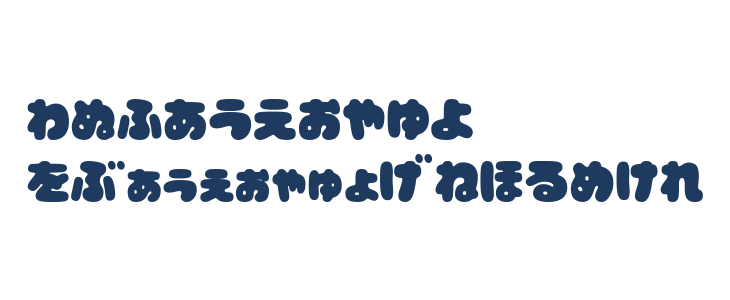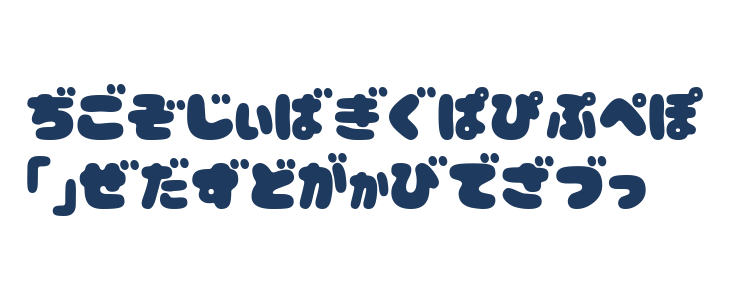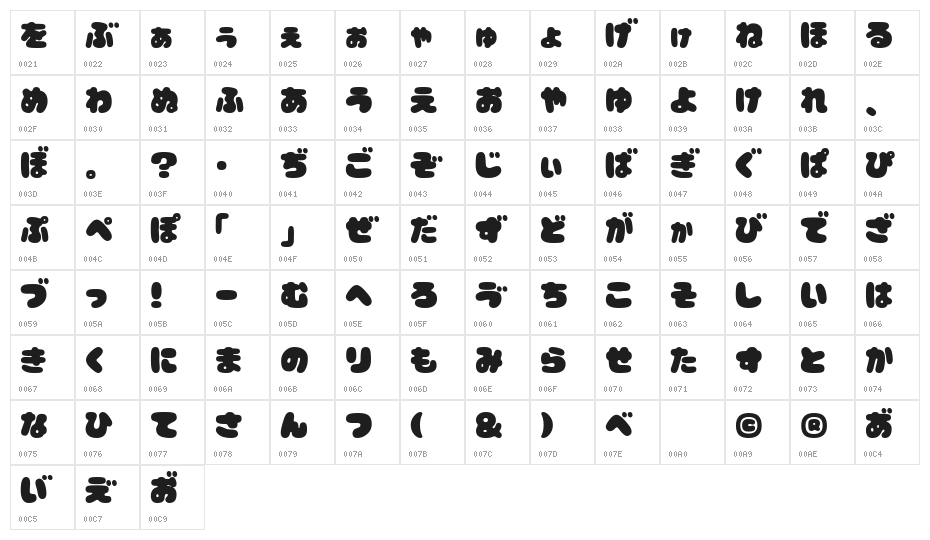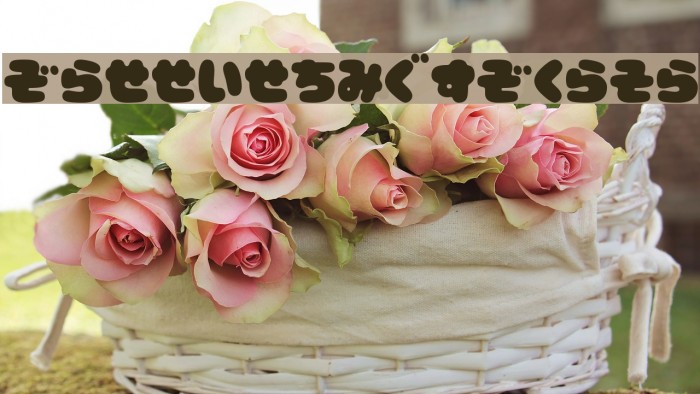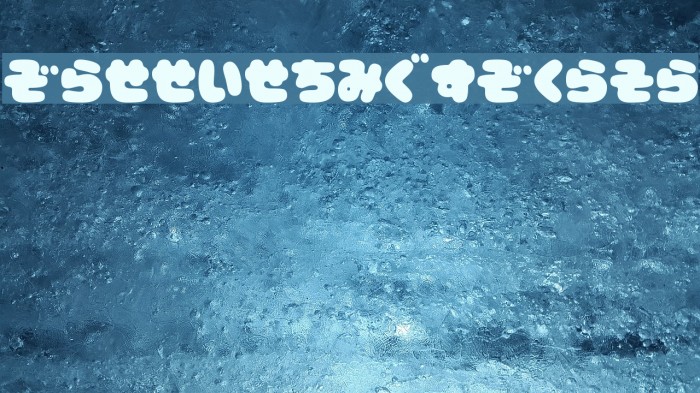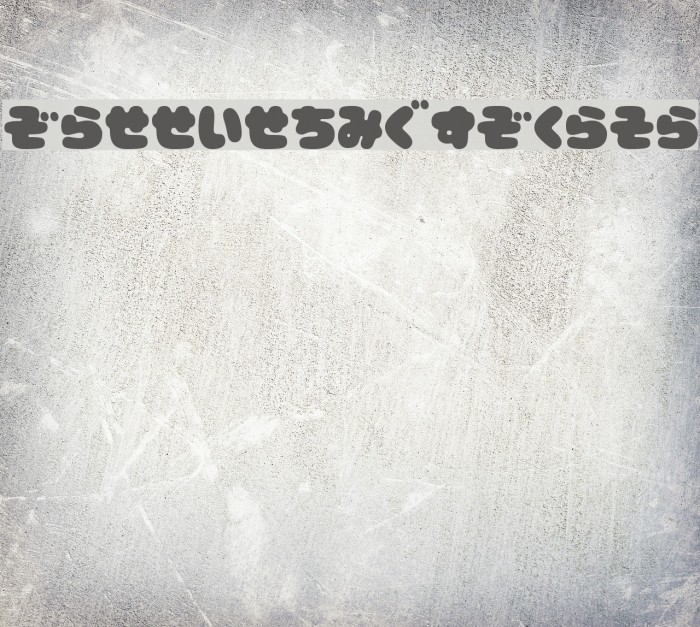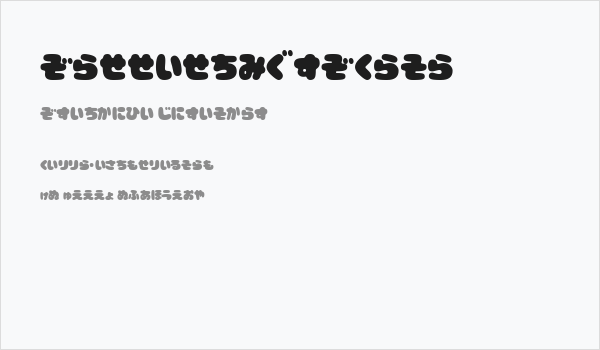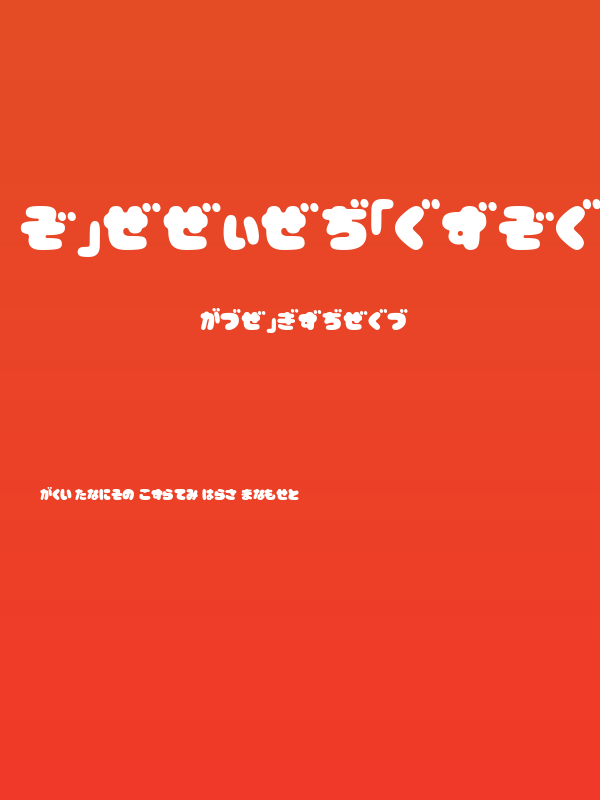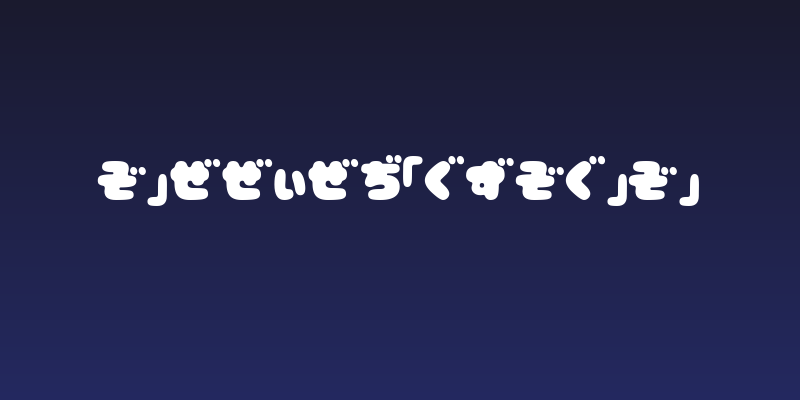
CoppepanHrChoco Font
CoppepanHrChoco Description
This playful and bold font features rounded, bubble-like characters that convey a sense of fun and whimsy. The strokes are thick and uniform, giving it a strong presence on the page. The characters are closely spaced, enhancing the compact and cohesive look. This style is particularly suitable for designs that aim to capture attention and convey a lively, energetic vibe. The font's unique appearance makes it ideal for creative projects where a touch of personality is desired.
| Proposed Projects | Ideal for children's books, playful branding, posters, and party invitations. |